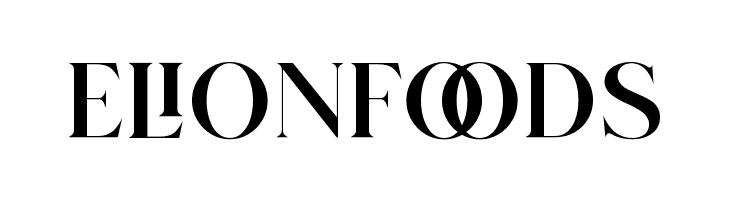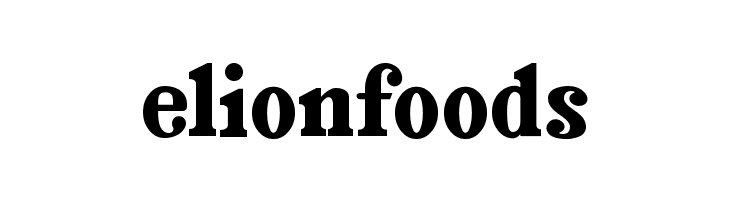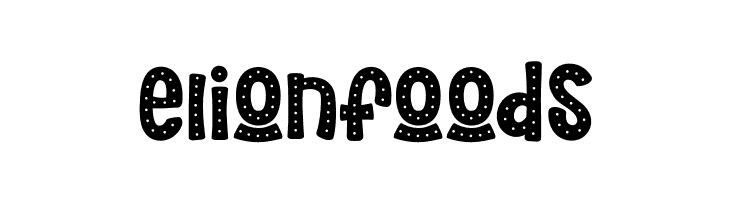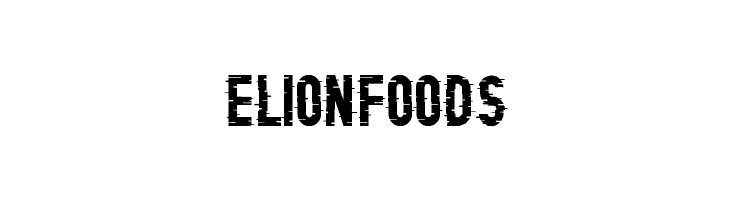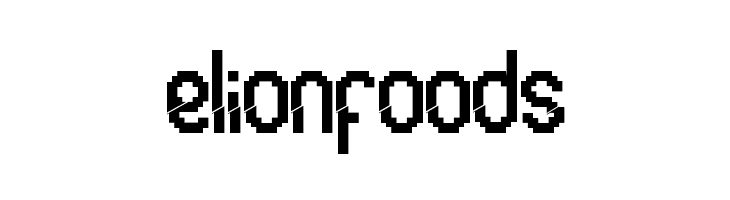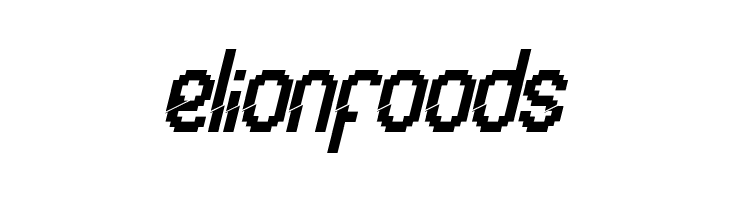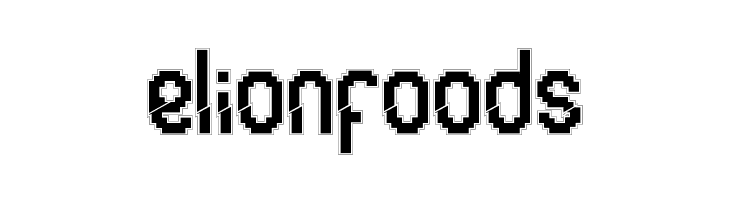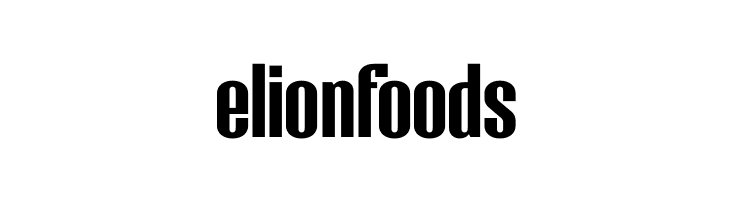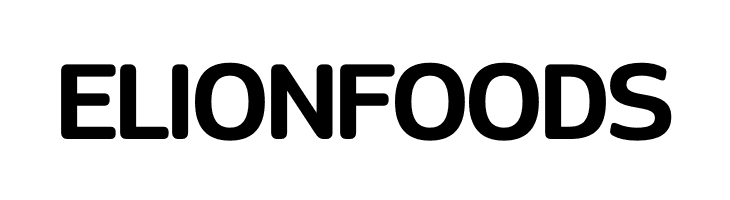
A bold, robust serif font with strong, prominent strokes and pronounced serifs.
A fluid, monoline script font with elegant, connected characters.
A playful, polka-dotted decorative font with bold, rounded characters.
A bold, rounded sans-serif font with smooth curves and uniform strokes.
A bold, modern font with strong vertical lines and slightly condensed letterforms.
A bold, glitch-style font with a digital, fragmented appearance.
A pixelated, retro-style font with a glitchy, digital aesthetic.
A pixelated, italic font with a digital, glitchy aesthetic.
A pixelated, glitchy outline font with a retro digital aesthetic.
A high-contrast serif font with elegant, sharp serifs and a modern classic appeal.